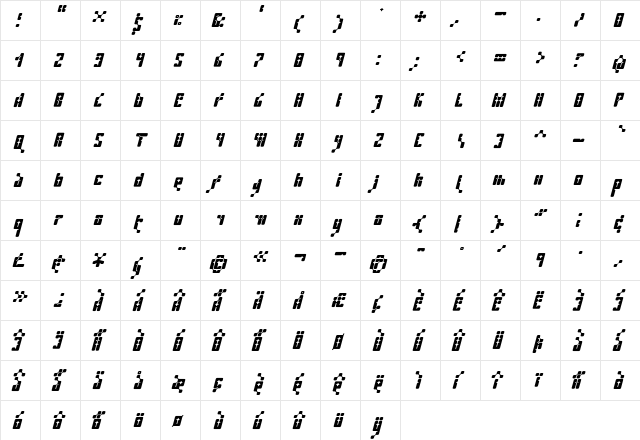
Kernfusion Italic
Design Context for Kernfusion Typeface
Kernfusion is a composed and adaptable typeface that performs quietly and consistently across a wide range of design contexts. The dynamic lean of this cut emphasises speed and emphasis in any layout.
Pro Tip: Use Kernfusion for emphasis, pull quotes, and subheadings where its slanted energy can add rhythm to the layout.